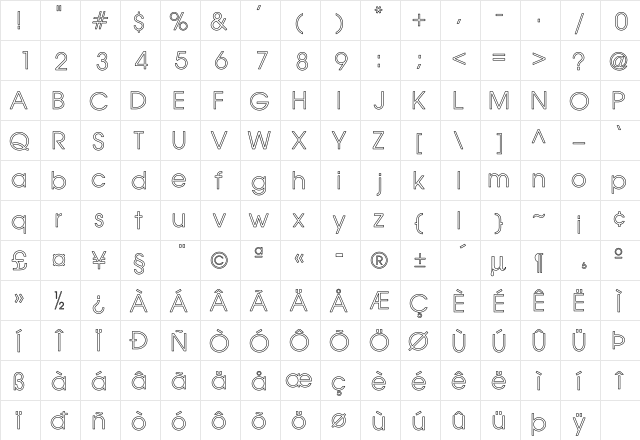
Stockton Ho Regular
Design Context for Stockton Ho Typeface
Stockton Ho takes a measured approach to typography — its balanced proportions and neutral character make it a reliable workhorse for both digital and print work.